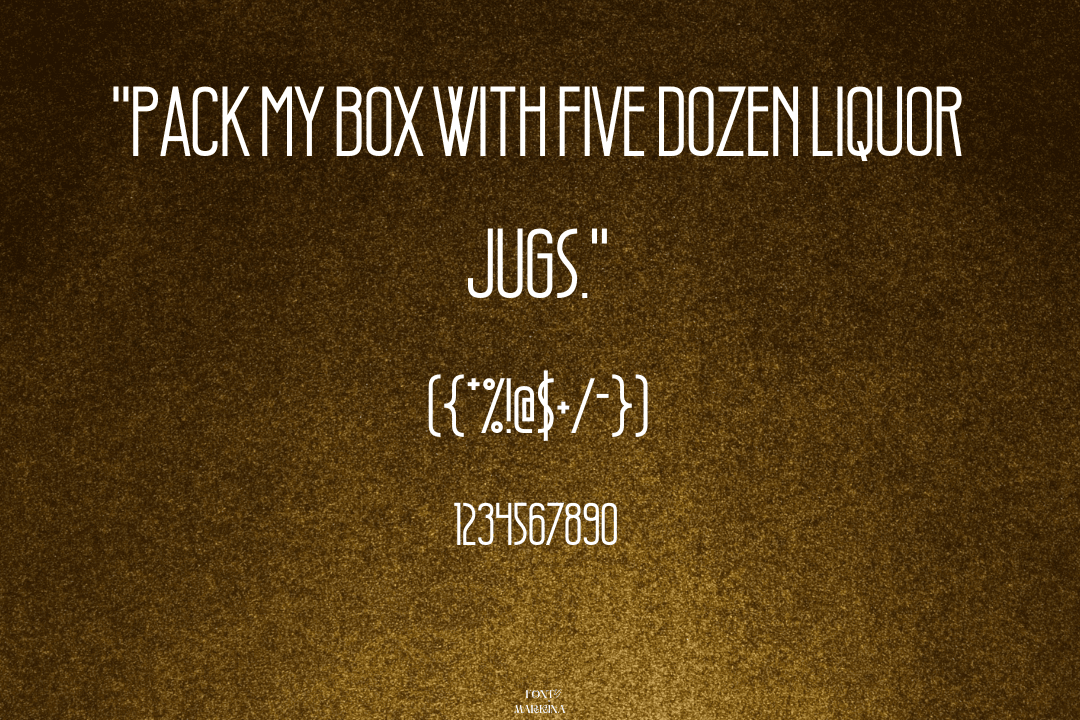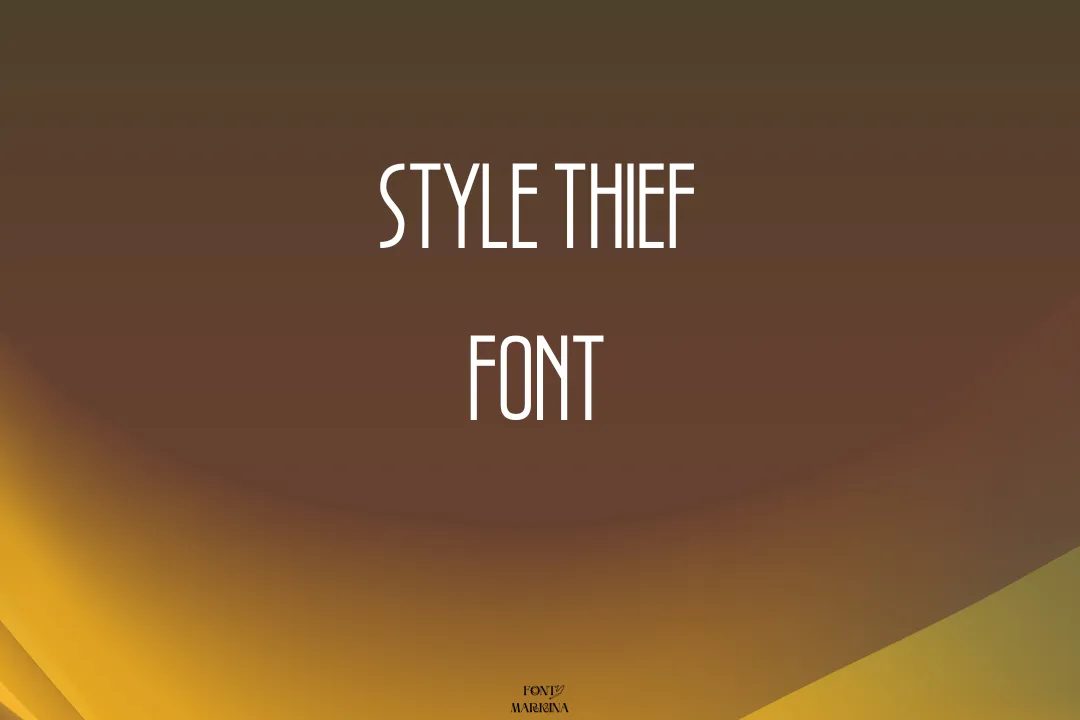
Style Thief Font is a stunning texture created by the design studio Chequered Ink, which specializes in creating unique and creative typefaces. It is a sans serif with an extra large height. This typography is described as a “hand-drawn graffiti-style font with a spontaneous, rebellious feel.”
Style Thief typeface has a bold and slightly uneven appearance, with letters that appear to be quickly written with a marker or paintbrush. This tremendous font features uppercase and lowercase letters, as well as numbers, punctuation marks, and a selection of special characters. This typography falls in the classification of the sans serif family and Avenir Next font is similar and is also a sans serif.
Uses of Style Thief Font
This typography can be used in a vast range of design projects, particularly those that require a bold, rebellious, or urban feel. Here are some potential uses for Style Thief:
- Graffiti art: Its bold, hand-drawn style is perfect for creating graffiti-style artwork, whether it’s a mural or a poster.
- Urban-themed designs: If you’re working on a design project related to urban cultures, such as a hip-hop album cover or a streetwear brand logo, Style Thief can help convey the rebellious, edgy vibe you’re going for.
- Posters and flyers: Because of its bold appearance, It is a great choice for designing eye-catching posters and flyers that are meant to grab people’s attention.
- Comic books and graphic novels: The font’s playful, hand-drawn feel can work well in comic books and graphic novels, particularly for titles that have a more lighthearted or humorous tone.
- Website and app design: This texture can be used to add a unique and edgy touch to website and app designs, particularly for those related to music, art, or youth culture.
What is the type of Style Thief font?
It is a hand-drawn, graffiti-style font with a bold appearance. It is a sans-serif font with an extra large height character.
Is Style Thief font a good font?
It is a unique and creative font that can work well in certain design projects, particularly those that require a bold, rebellious, or urban feel.
Where we can use Style Thief font?
This texture can be used in a variety of design projects that require a bold, edgy, or urban look, such as graffiti art, posters, flyers, urban-themed designs, comic books, and website or app designs related to music, art, or youth culture.